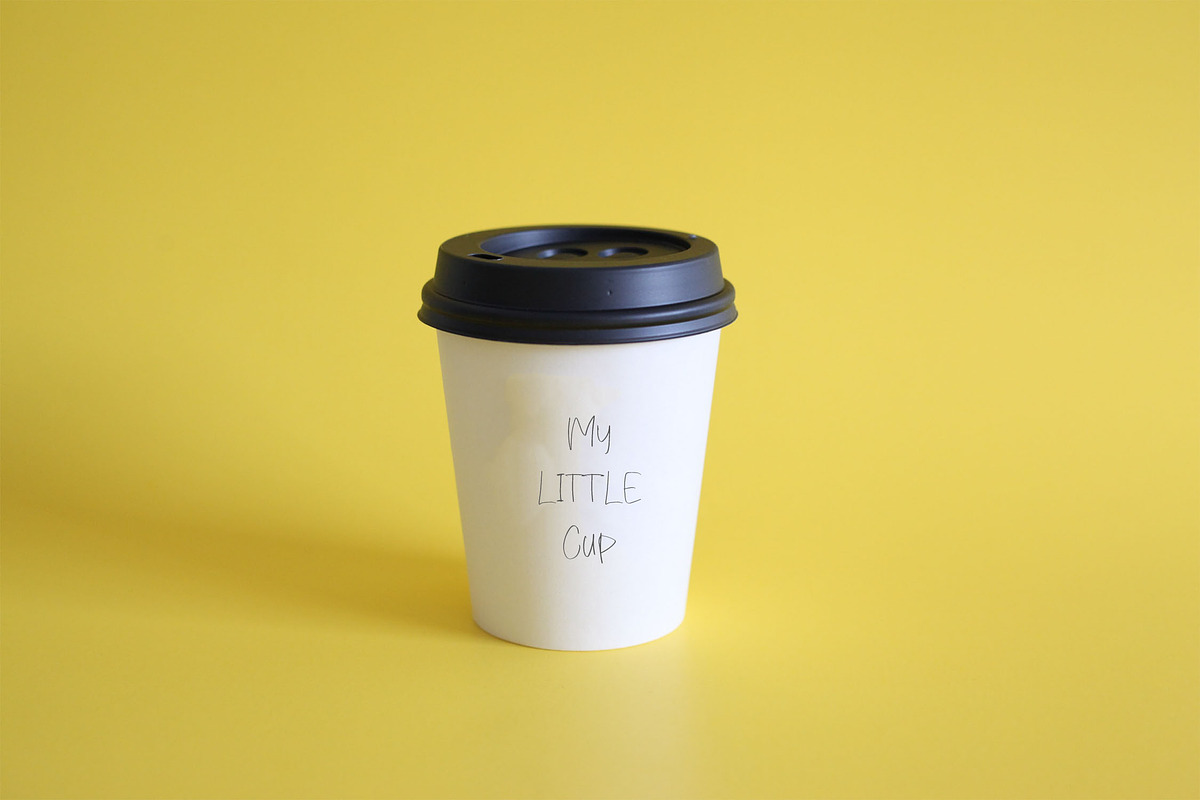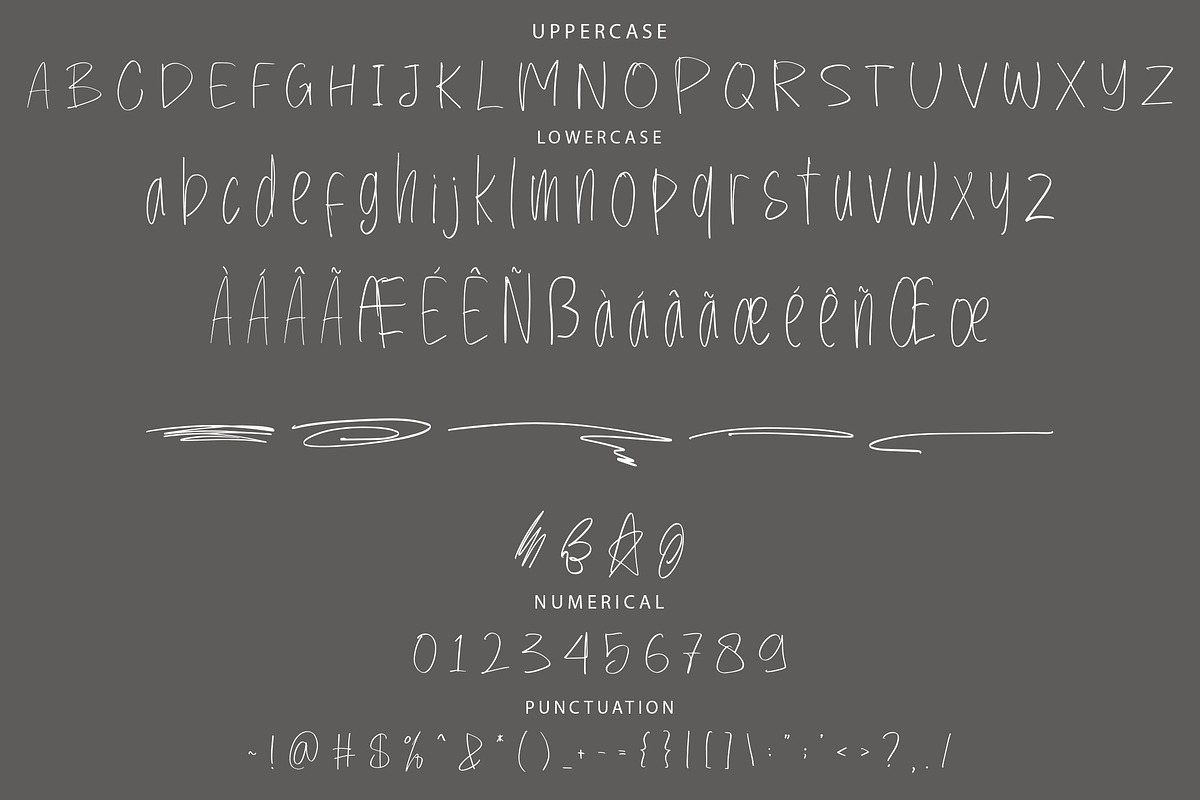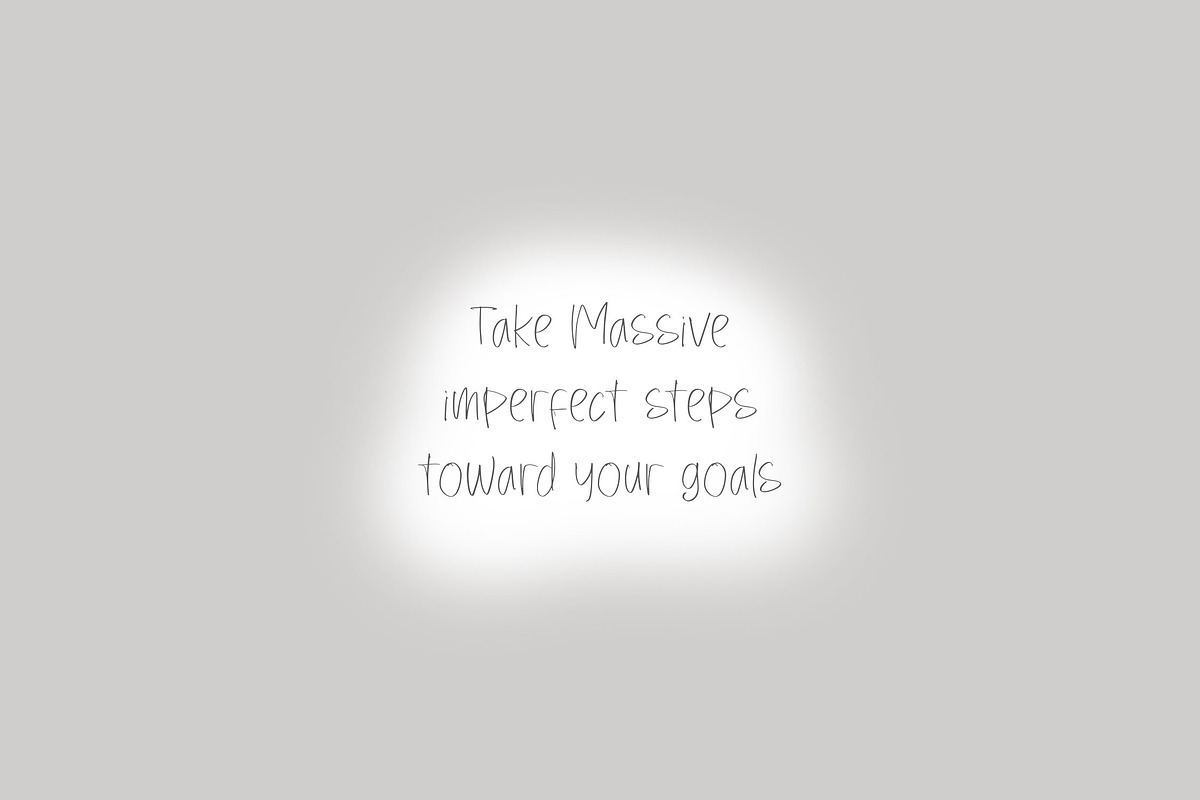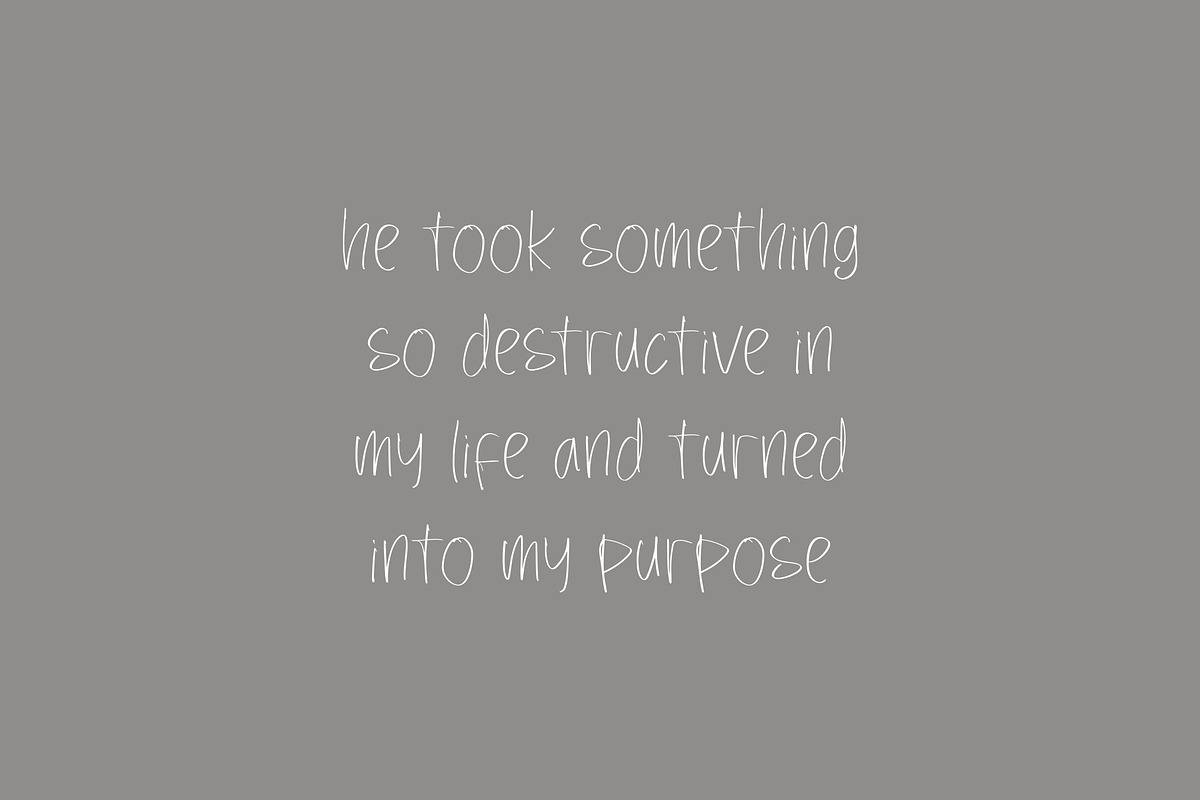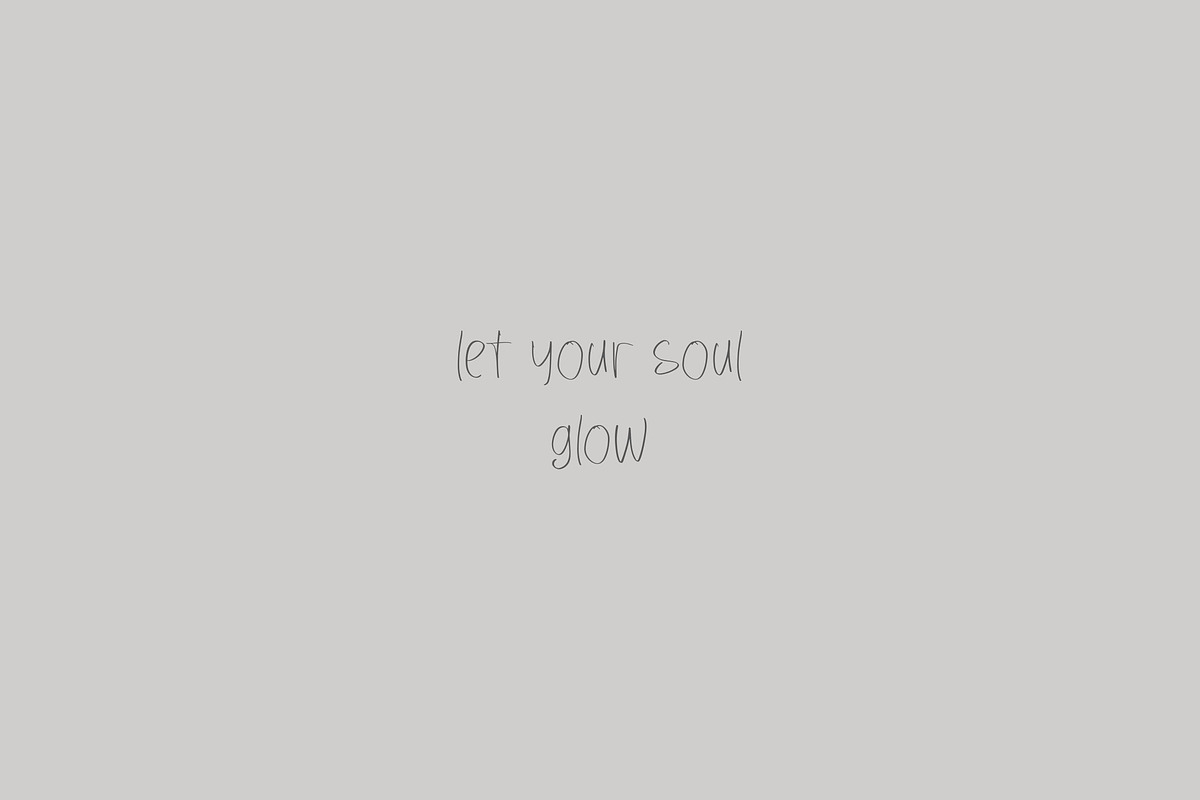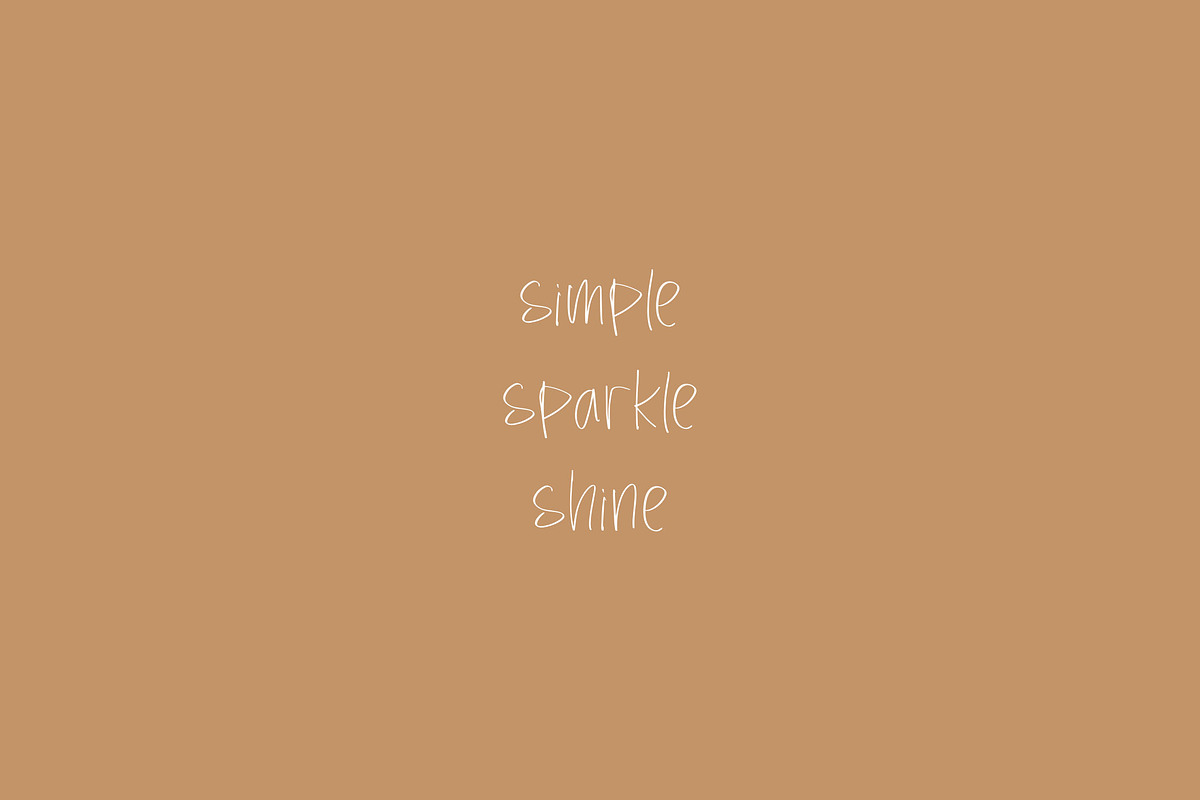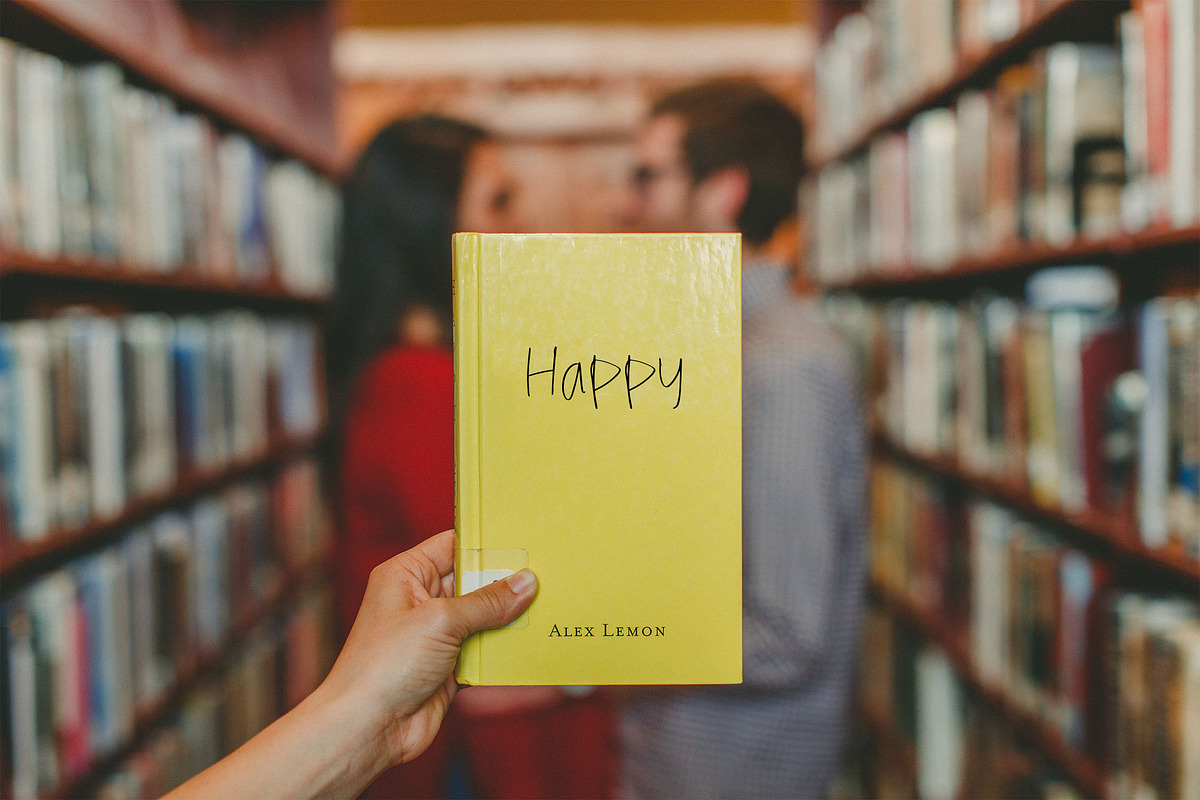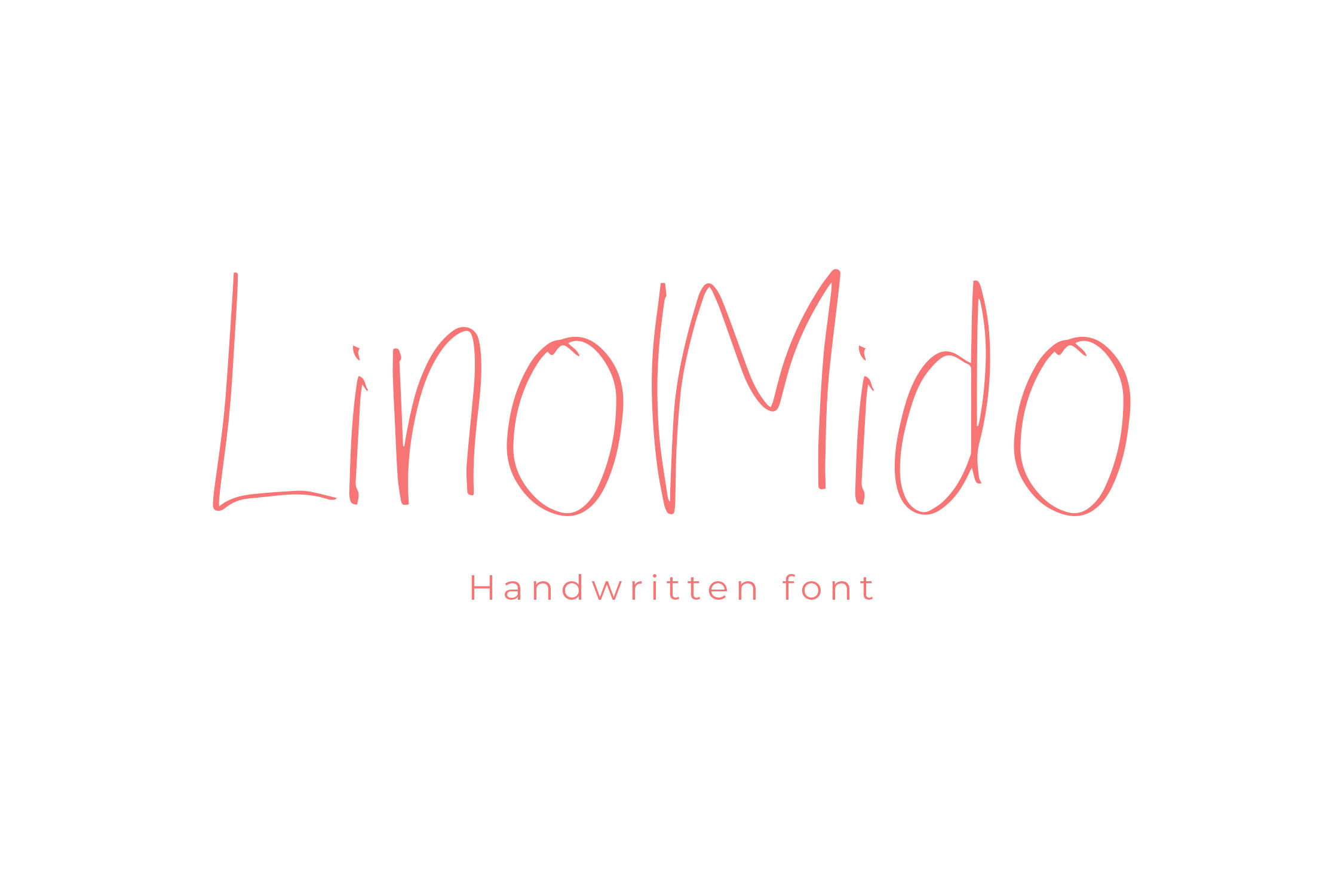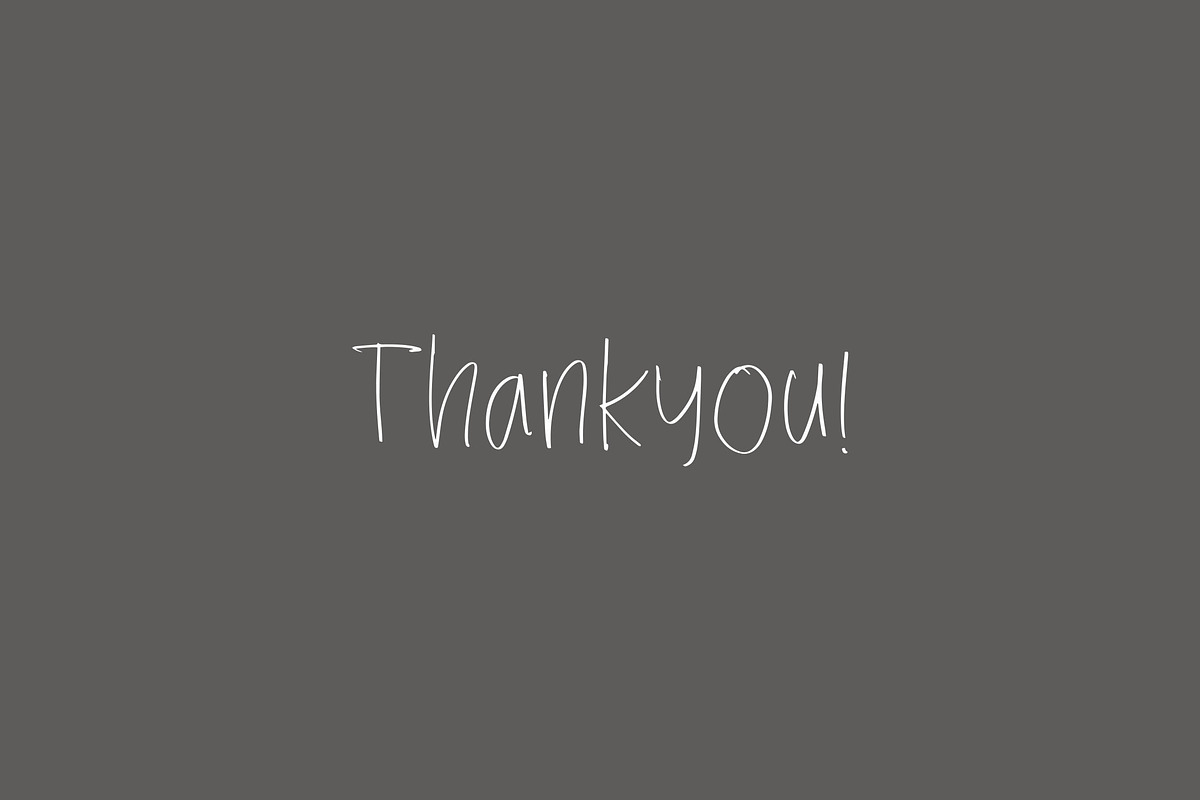
LinoMido Handwriting Font
LinoMido - Rough Handbrush Handwriting Font
LinoMido is a bold, rough handbrush-style handwriting font, designed with unique character shapes that bring an authentic, handcrafted feel to your projects. This versatile font is perfect for enhancing the visual appeal of branding, packaging, posters, and more, giving your designs a creative, edgy look.
- Includes ligatures, stylistic alternates, and swashes
- Supports multiple languages for global versatility